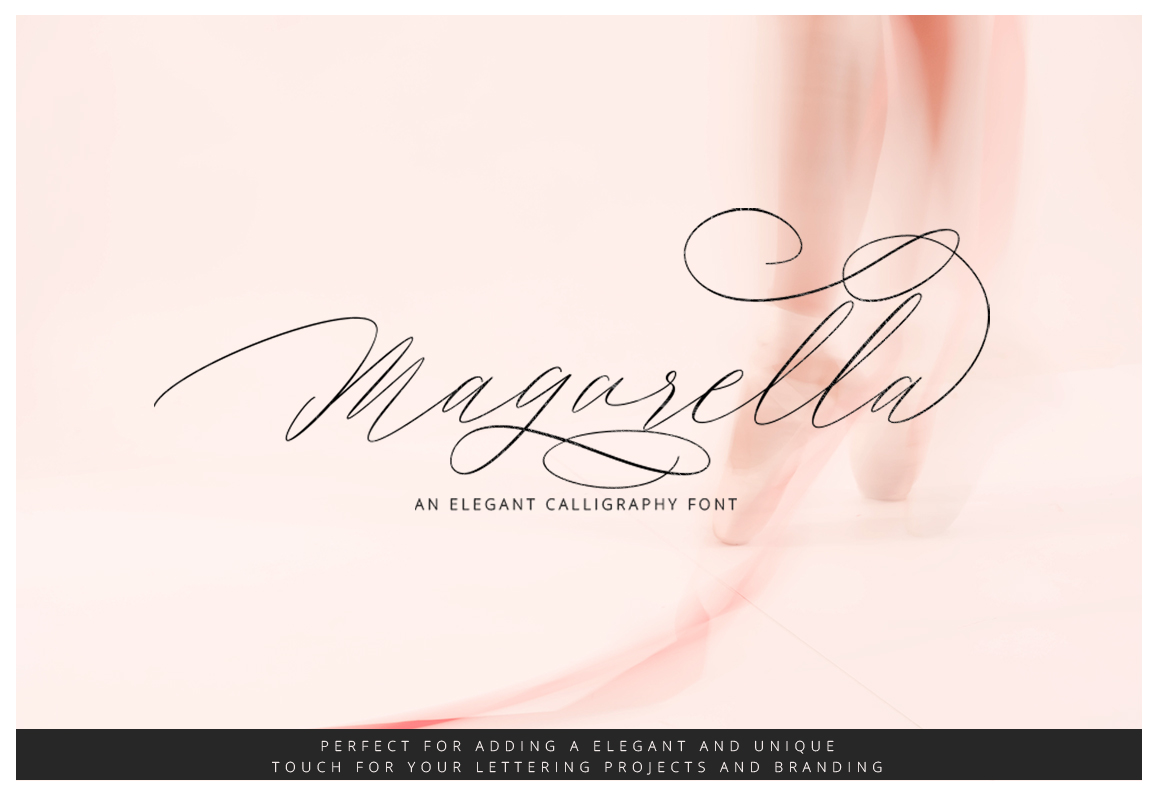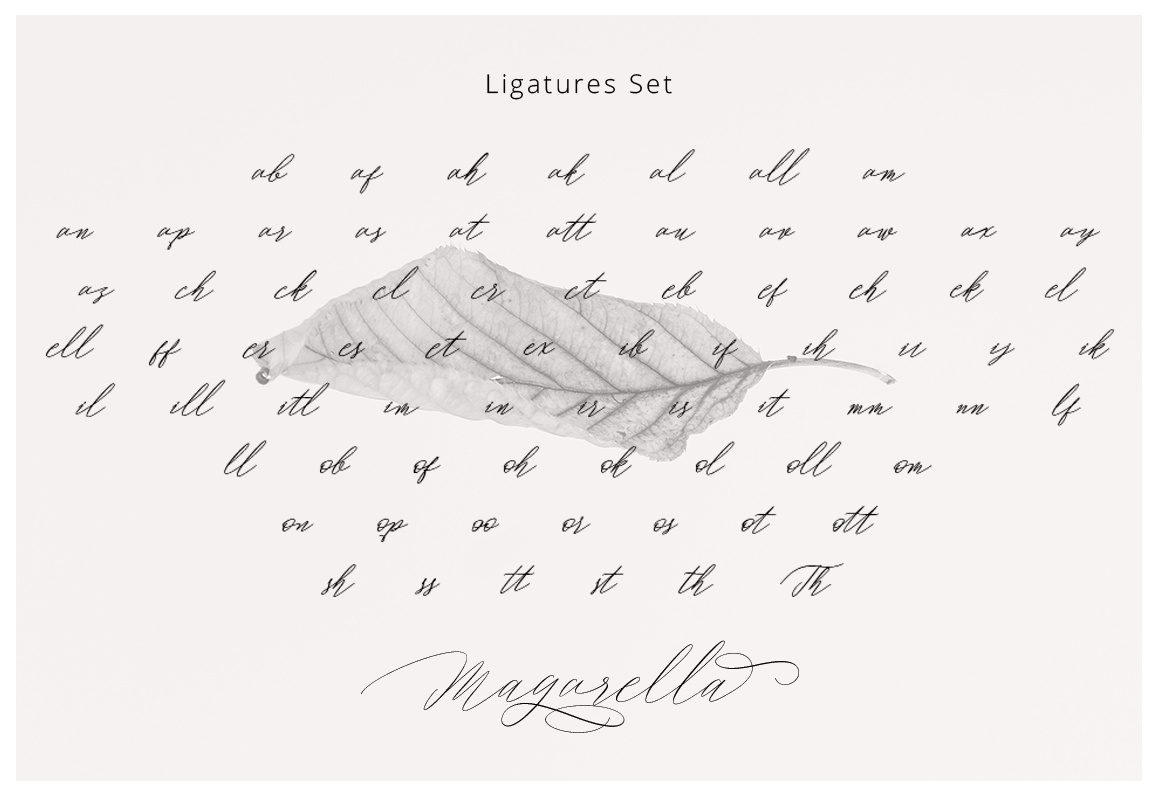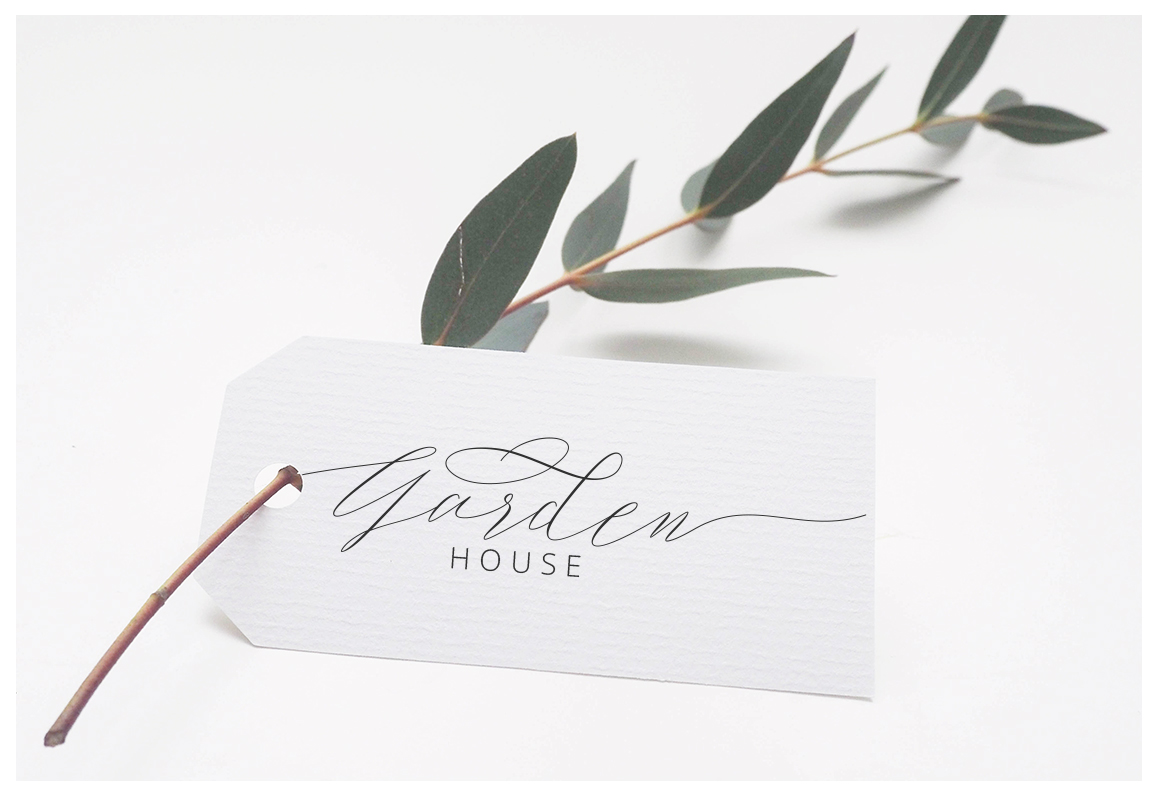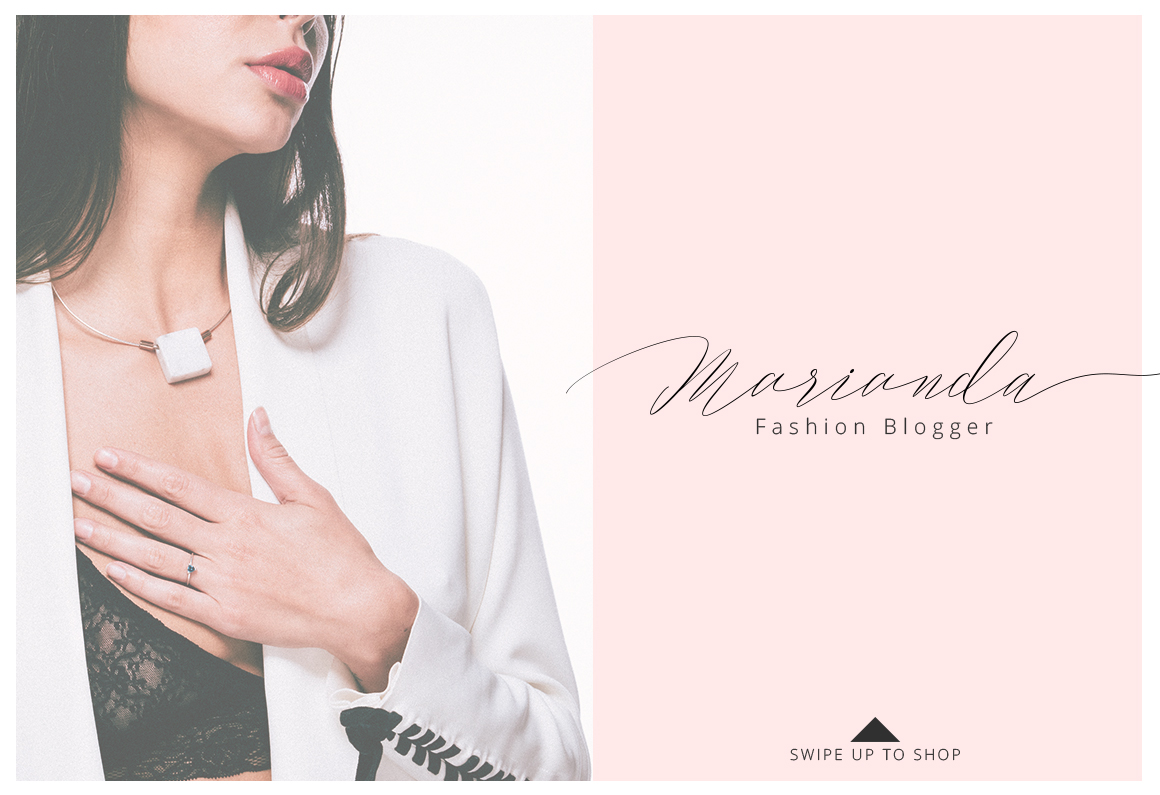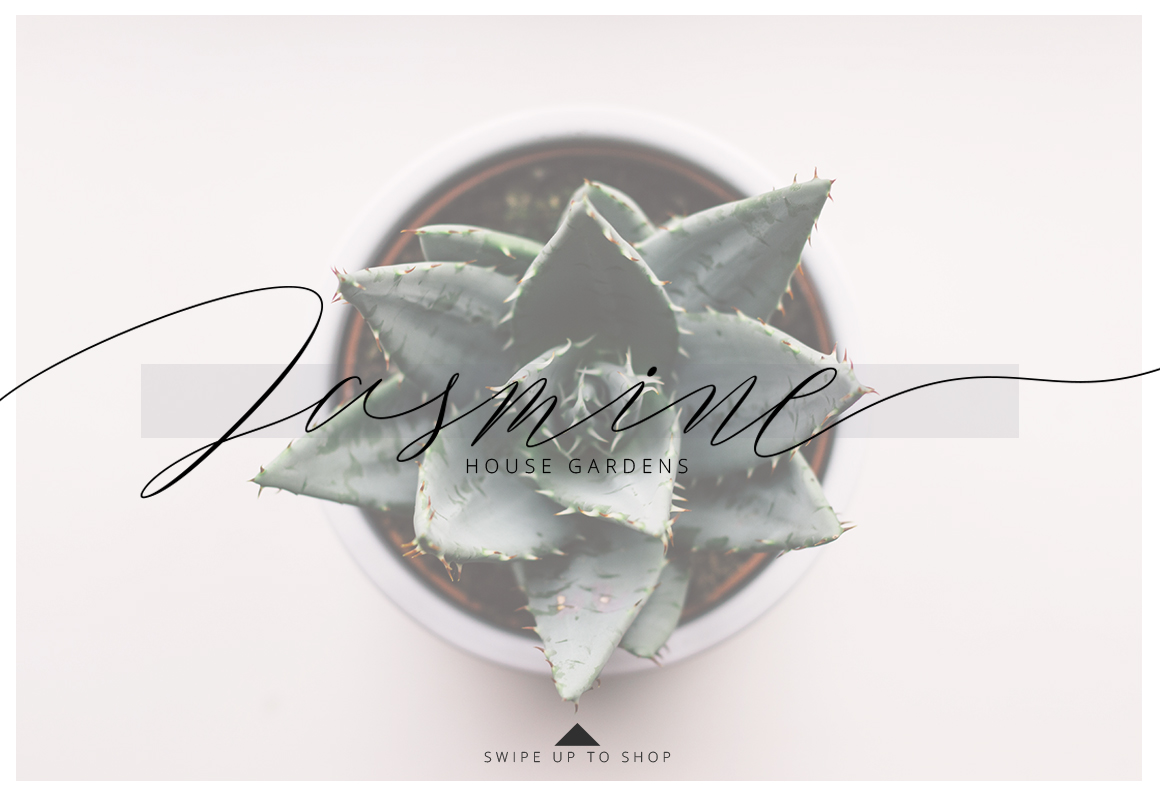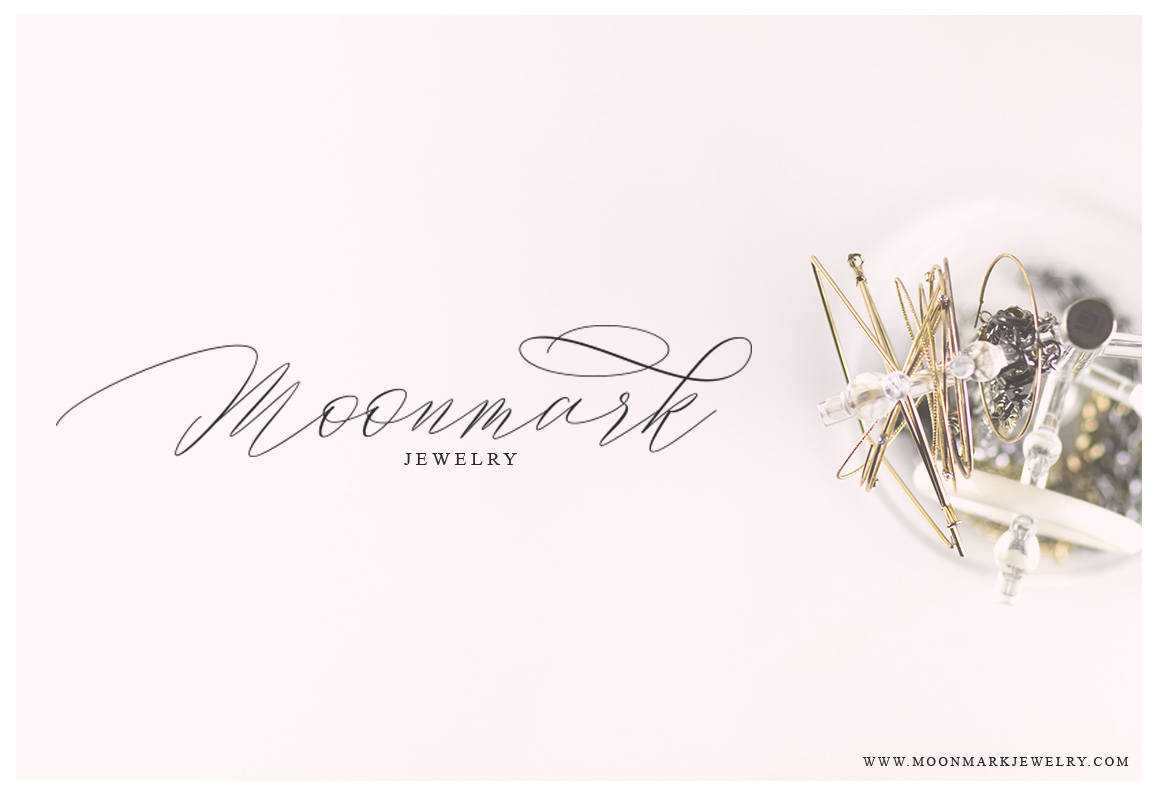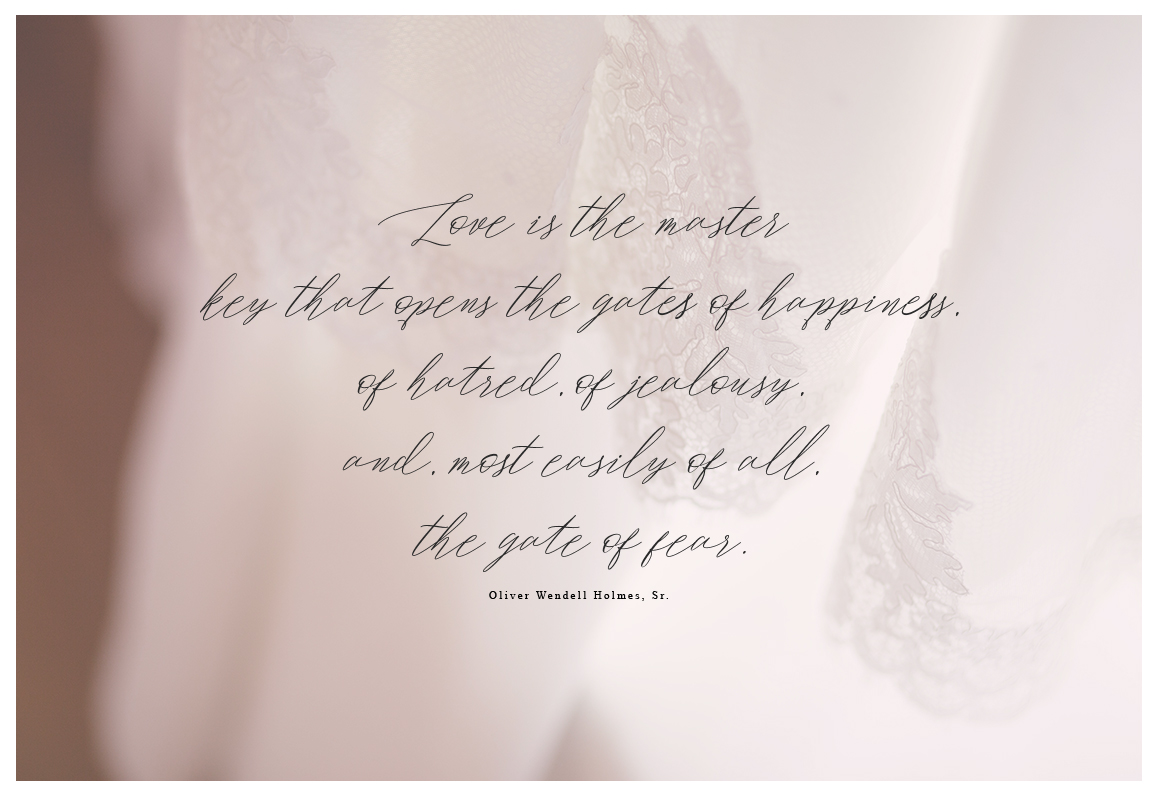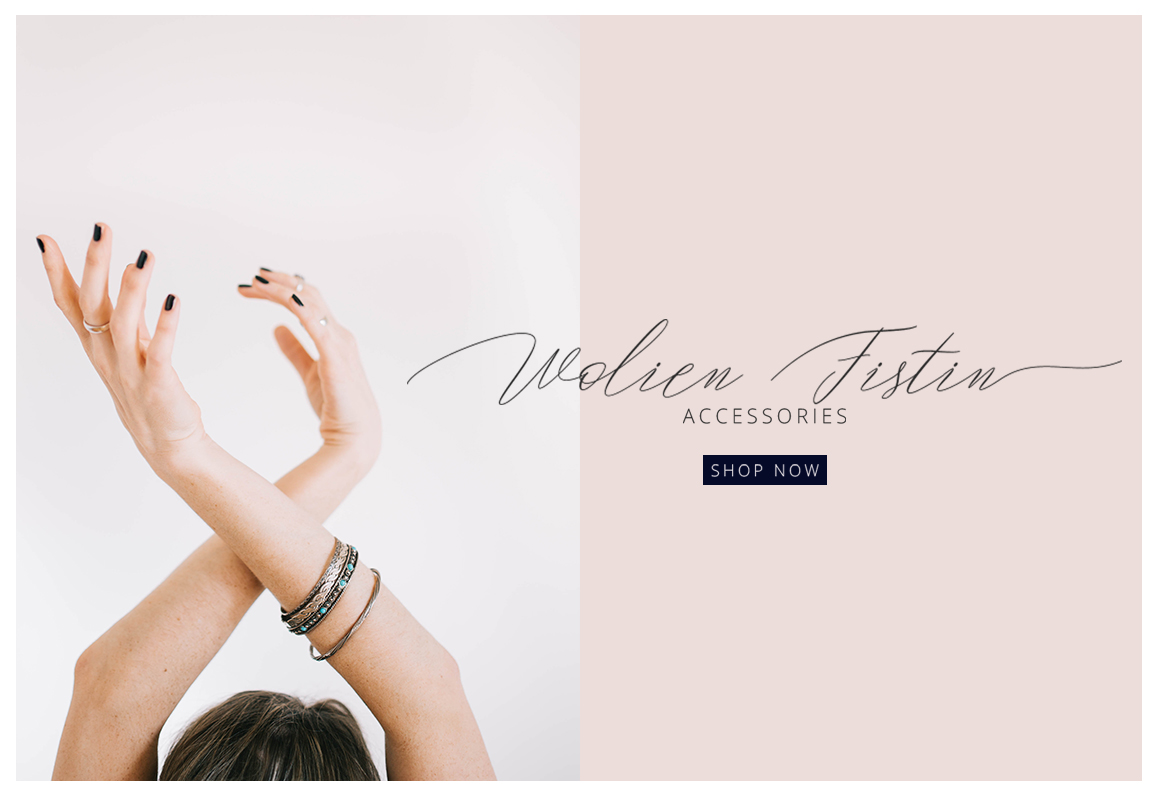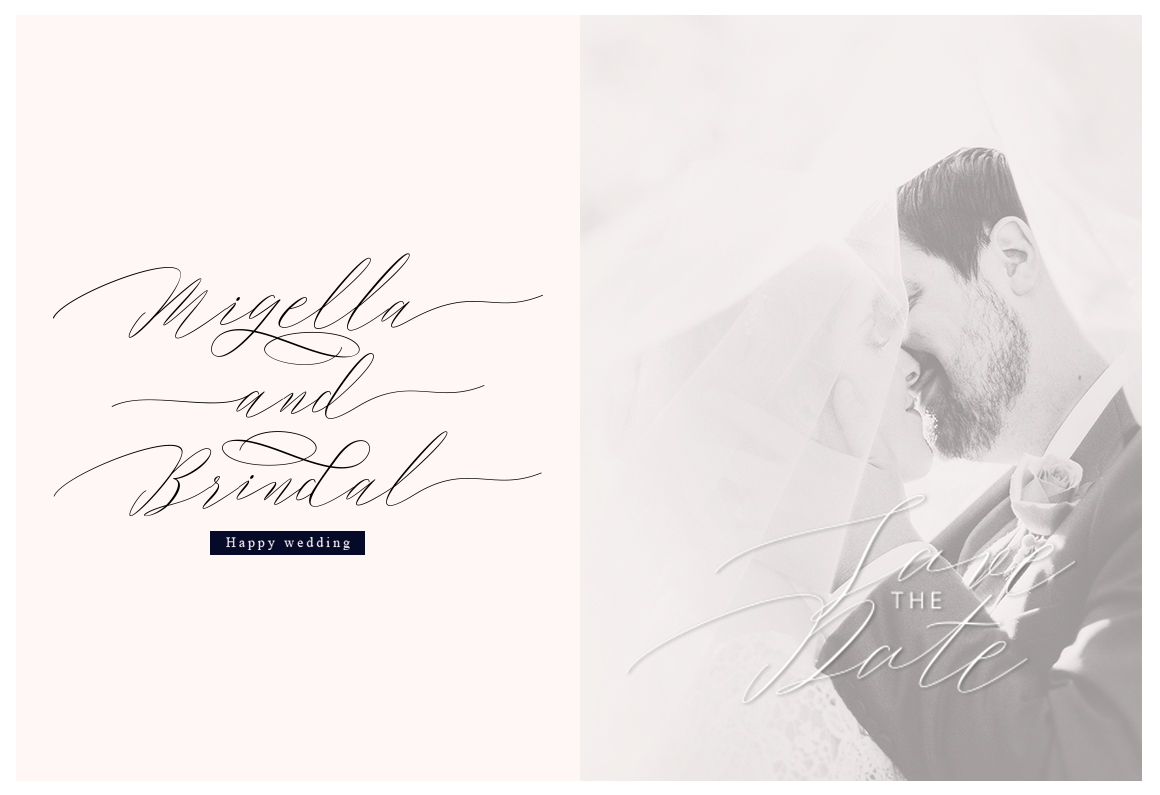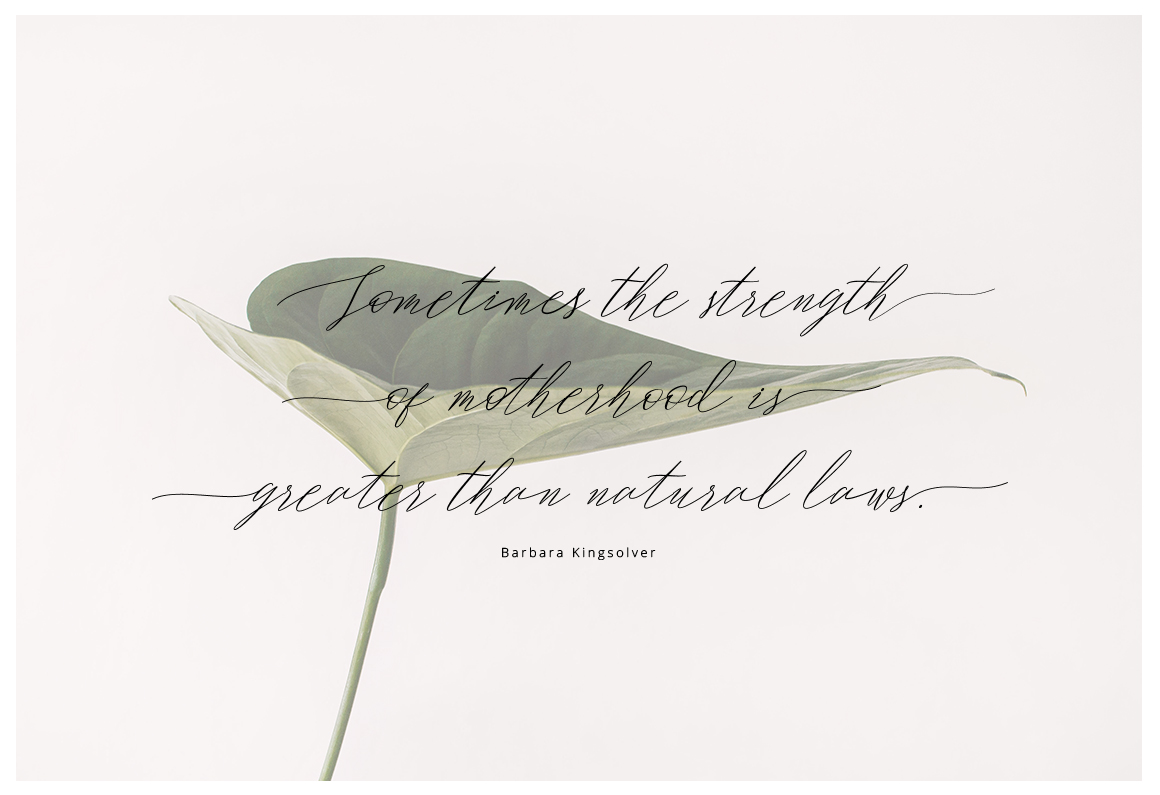
Magarella Font
About Magarella Font
Magarella is a beautiful script font, fresh and modern in approach and style. This font dances and has a laid back appeal, yet holds up as a romantic display font given its stylistic alternates and embellished swashes.